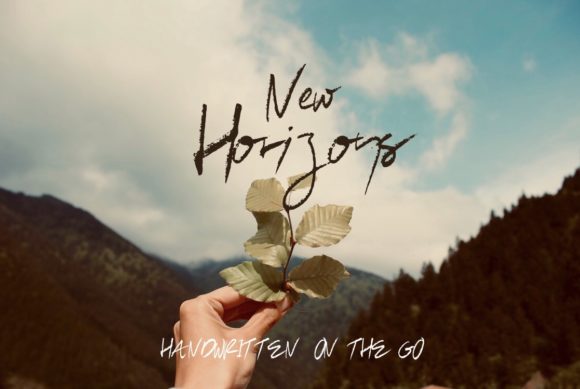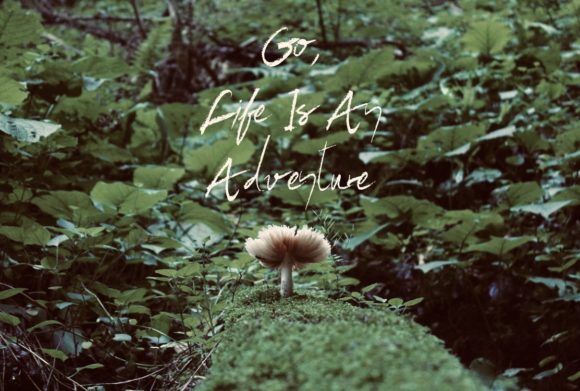
New Horizons Font
About New Horizons Font
New Horizons is a fun and lovely handwritten font with an adventurous feel. Use it to add a playful feel into a true standout!